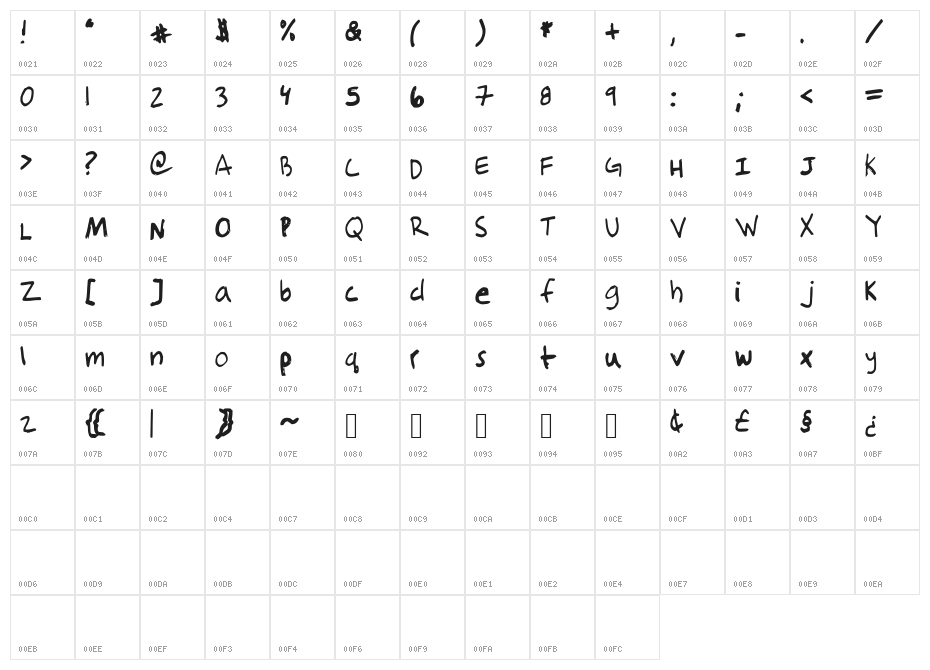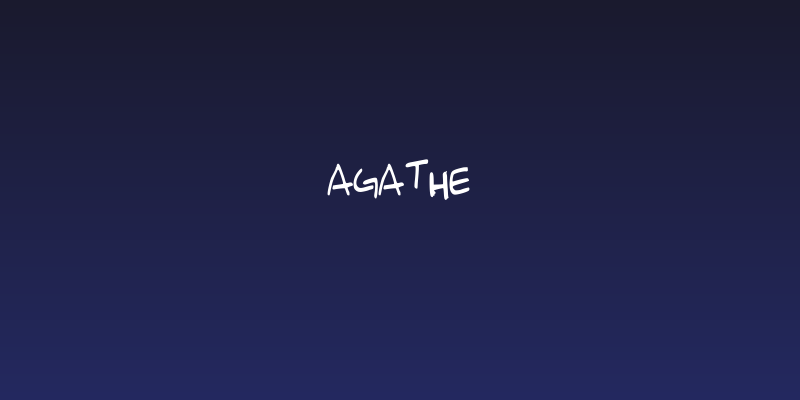
Agathe Font
Agathe Description
This font features a bold, handwritten style that exudes a casual and playful vibe. The letters are slightly irregular, giving it an authentic, hand-drawn appearance. The strokes are thick and uneven, adding to its informal charm. The uppercase and lowercase letters maintain a consistent style, with rounded edges and a slightly slanted orientation. Numbers and special characters follow the same playful aesthetic, making it versatile for various creative projects. The overall look is dynamic and energetic, perfect for capturing attention.
| Overall Style | Casual, Playful |
| Proposed Projects | Ideal for children's books, playful branding, casual invitations, and creative posters. |